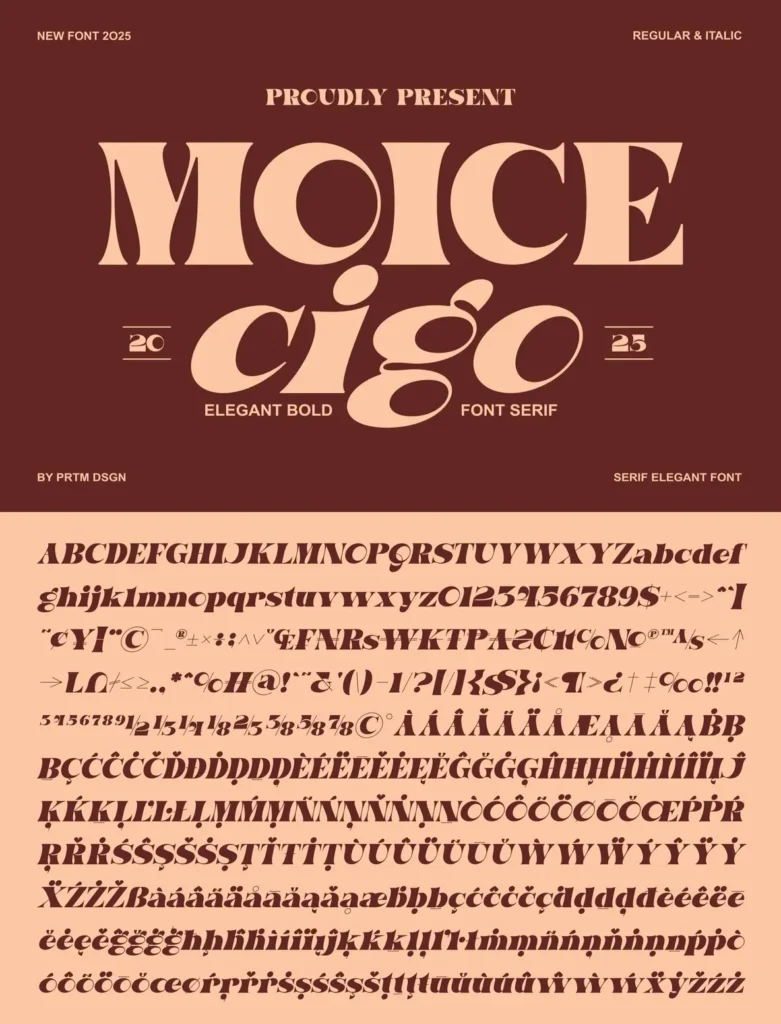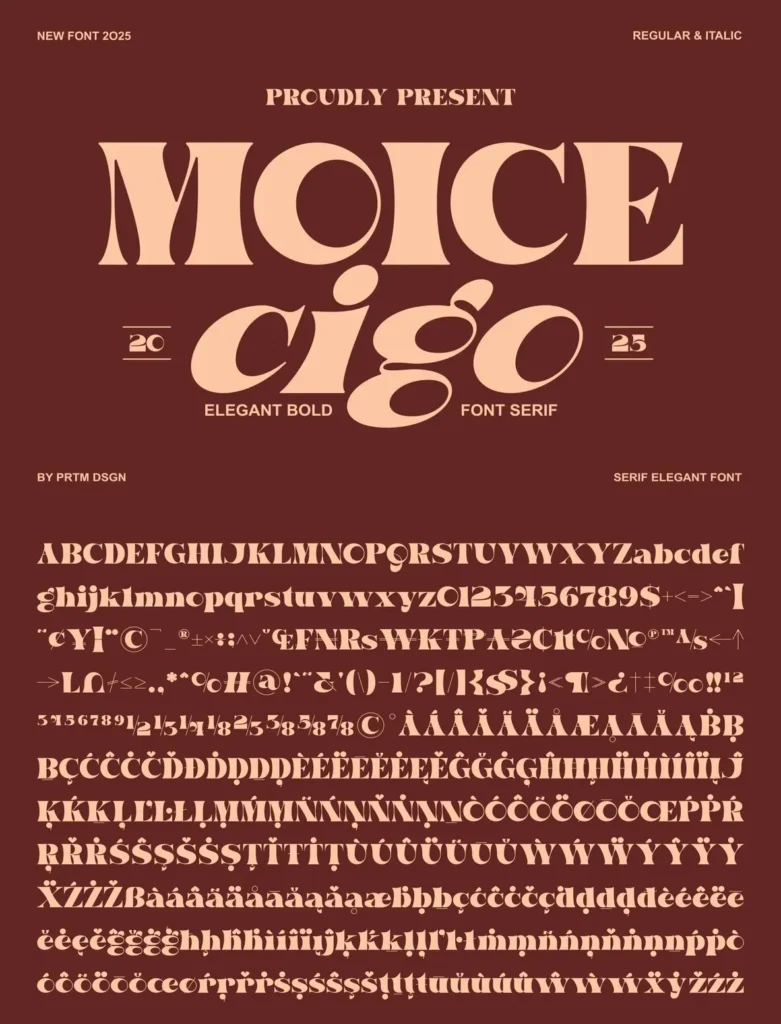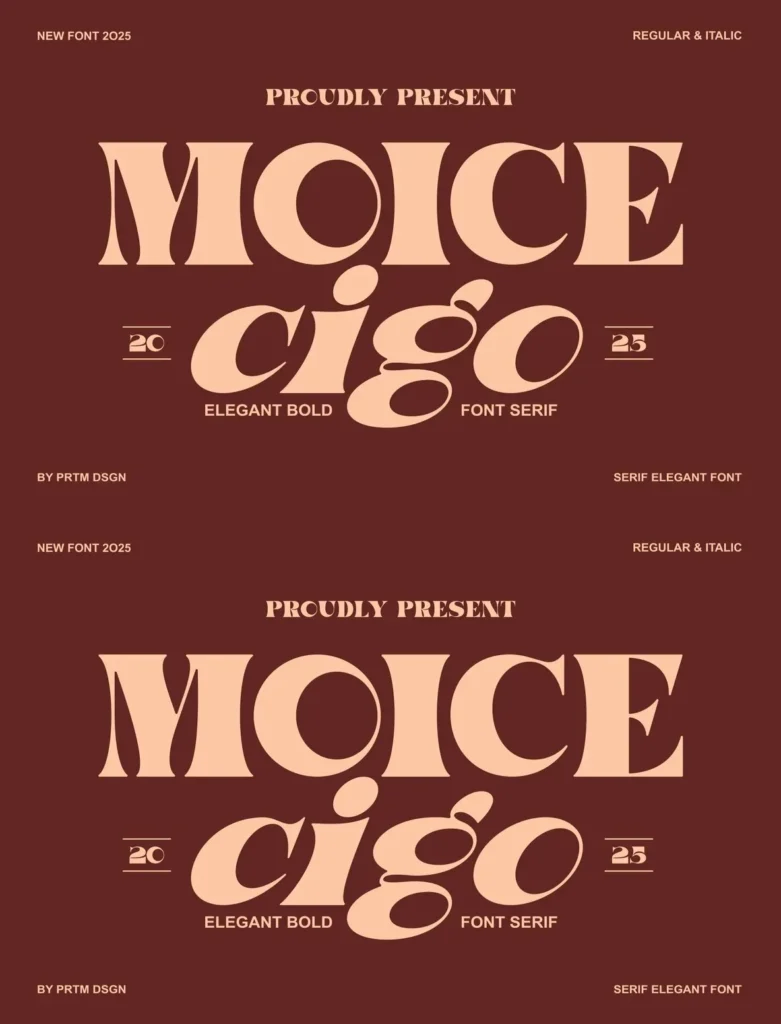
Moice Cigo — Elegant Bold Serif Poise
Moice Cigo is an elegant bold serif typeface with a careful balance of strength and refinement. Its bold, graceful letterforms feature sharp serifs, rich curves, and clear stroke contrast, giving each character a confident yet polished presence. The result is a majestic and luxurious serif font suited to premium branding, editorial layouts, and high-end design projects.
Bold verticals meet soft circular shapes, creating a harmonious blend of classic elegance and modern creativity. Named Moice Cigo, this typeface gives designers strong flexibility when they need timeless style and expressive typography. It is a refined choice for visual identities, headlines, layouts, and design work that calls for authority with elegance.